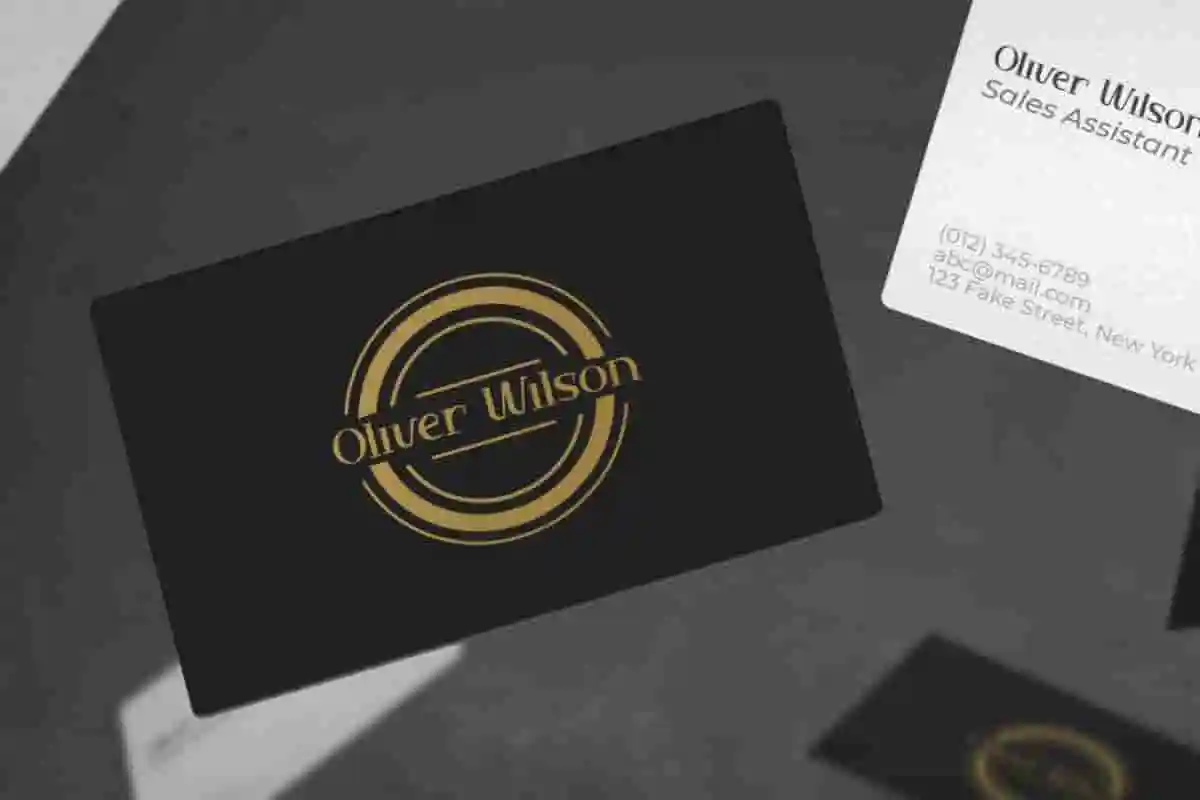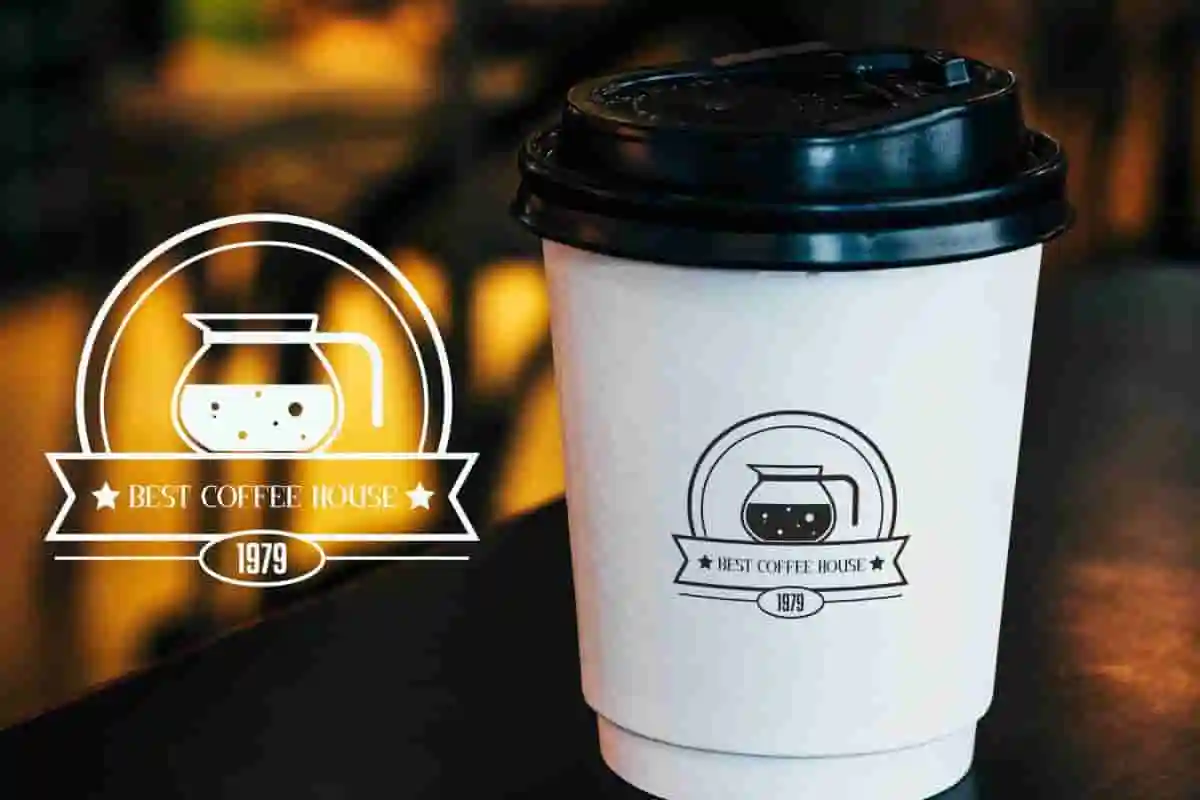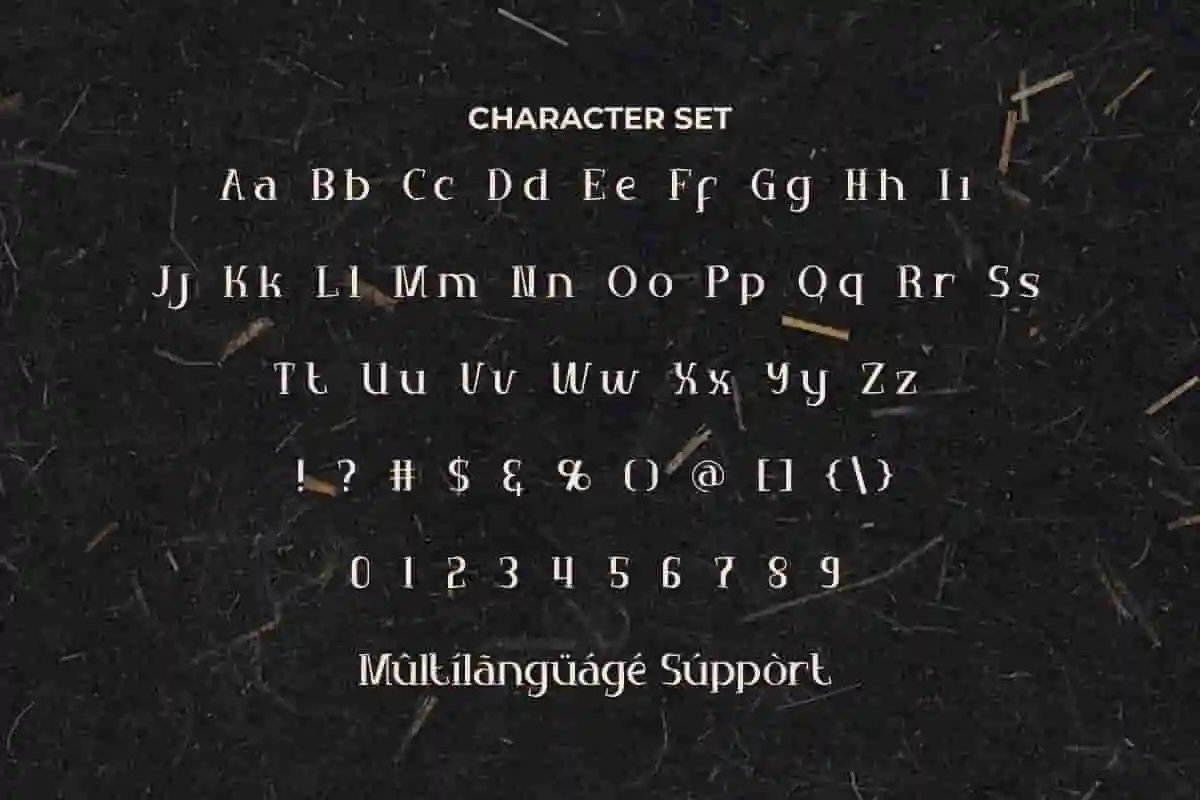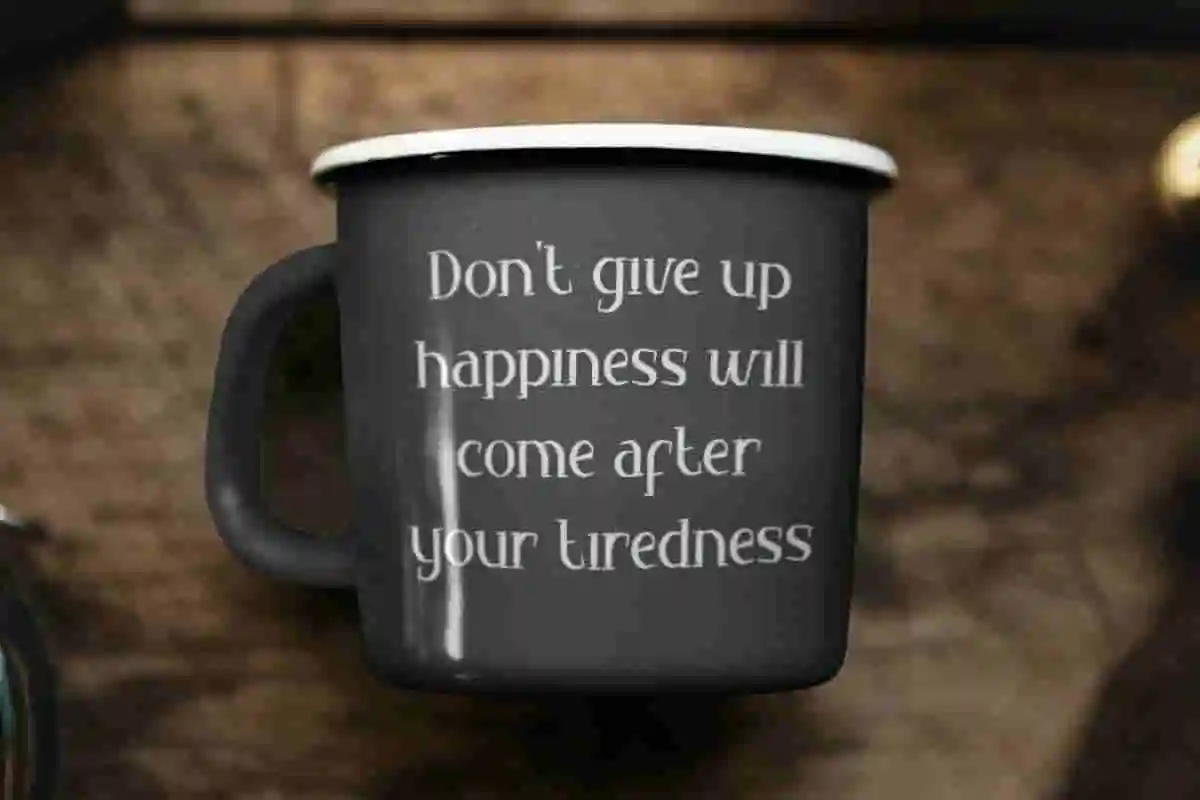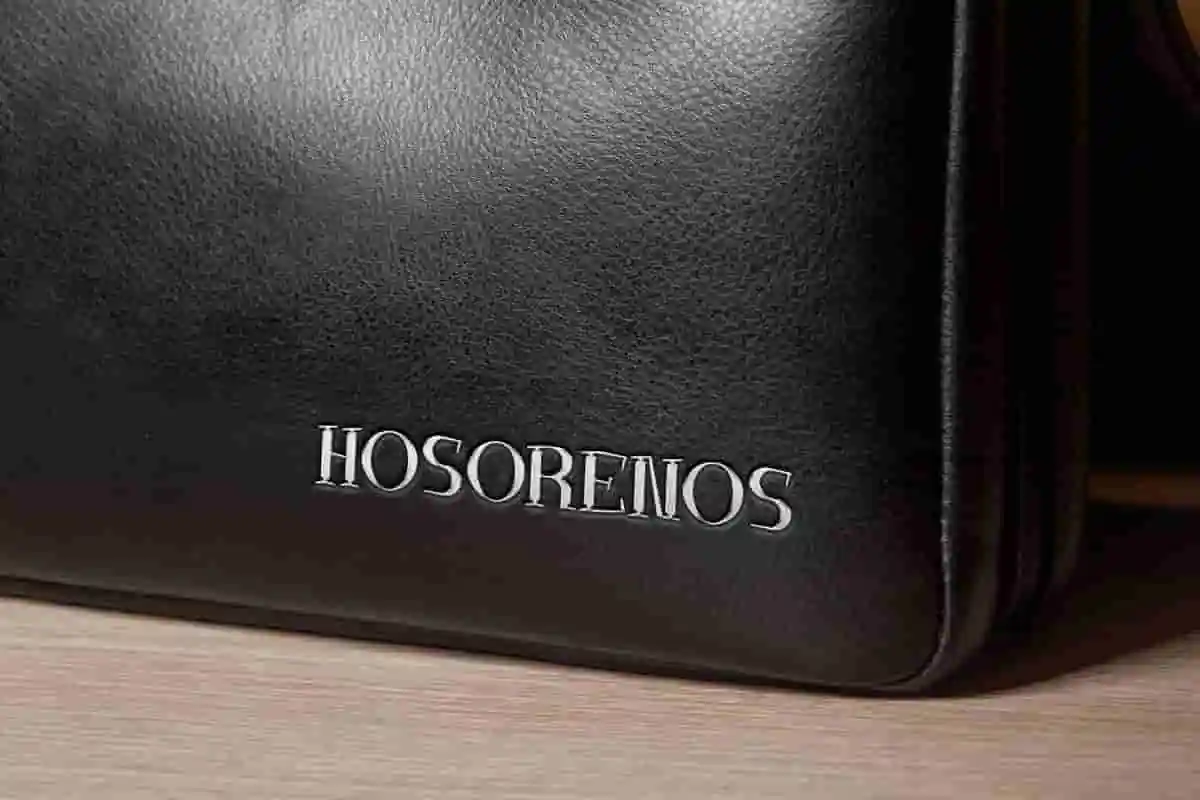
Black Roll Display Font
Black Roll Font is a stylish serif display font with mysterious feels that will be perfect for advertising, custom design, fashion, or simply as a stylish text overlay to any background image!
Black Roll Font is a stylish serif display font with mysterious feels. The thickness of the line make it look bold and adds a modern impression from the short lines at the ends of the letters, making it awesome for any project, such as billboard, brand image, cover, custom design, flyer, invitation, label, menu, packaging, poster, screen print, signage, social media post, stationery, sticker, thank you card, title, website, and many more!
Introducing Black Roll Display Font, a modern and powerful display typeface crafted to make a strong visual statement. With sharp edges, bold strokes, and a confident presence, this font is perfect for branding, streetwear labels, music covers, editorial headlines, sports posters, and anything that demands attitude. Black Roll isn’t just a font—it’s a style. It gives your text a fierce identity and commands attention from the first glance.
Make your message impossible to ignore with Black Roll Display Font, a bold and striking display typeface made for impactful design. With its confident structure and clean, sharp lines, this font is ideal for modern branding, posters, streetwear, headlines, product labels, and album covers. Designed to carry strength and clarity in every character, Black Roll speaks directly to bold creators, independent brands, and designers who value confidence and edge in their visual identity.
Elevate your designs with Black Roll Display Font, the ultimate bold display typeface that delivers power, style, and impact. Crafted for creatives who want their headlines, logos, and posters to stand out, this font combines sharp edges with smooth curves for a modern and fierce look.
- Bold & Commanding Style
- Global Language Support
Black Roll Font comes with a full set of Uppercase and Lowercase Basic Characters, Number, a large range of Punctuation, and Symbol. It’s a versatile font that works well on both large and small size scales. The font has also been equipped with multilingual support that is ready to use either on Windows or Mac machines with a simple installation. It’s tested to work well in the Adobe Apps (Illustrator, Adobe InDesign, Adobe Photoshop) CorelDraw, and others. PUA Encode Characters means you can access all the characters easily – Fully accessible without additional design software.